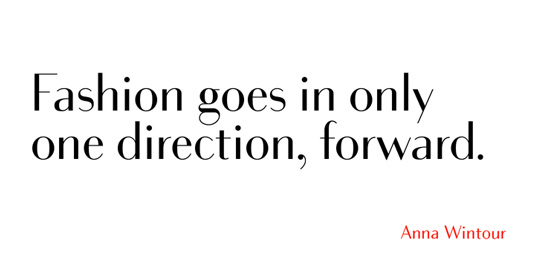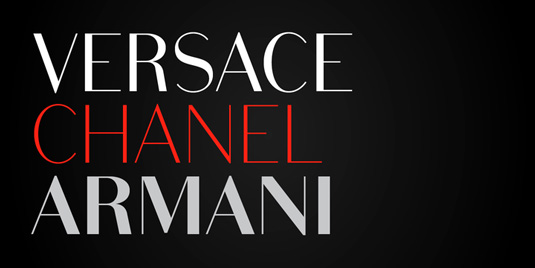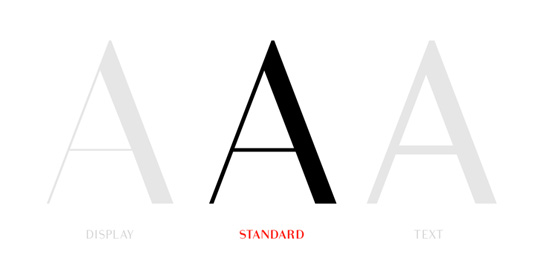
Font of the day: Bodoni Sans
Bodoni Sans by Jason Vandenberg
Today's font of choice, Bodoni Sans, was created by Canadian type designer Jason Vandenberg. Fresh and contemporary, stylish and sophisticated, Bodoni Sans is great for fashion publications, headlines, logos and much more.